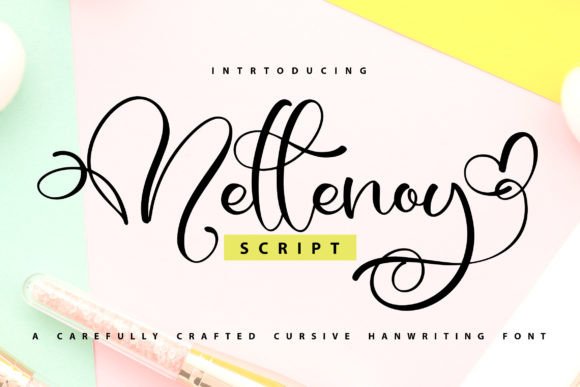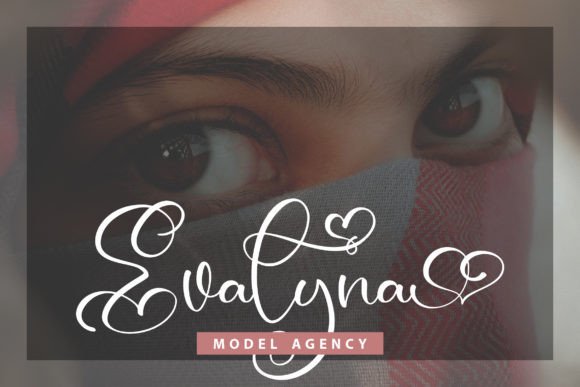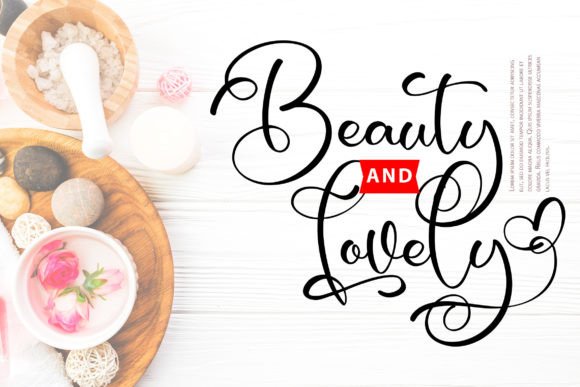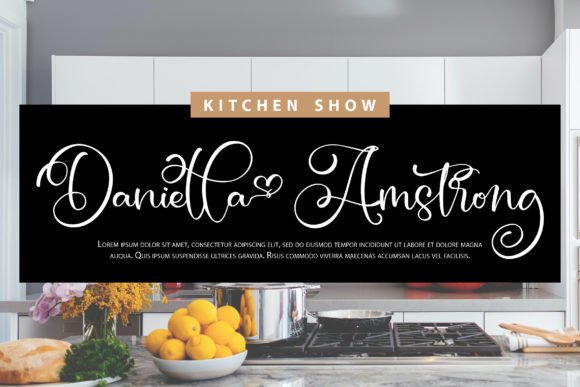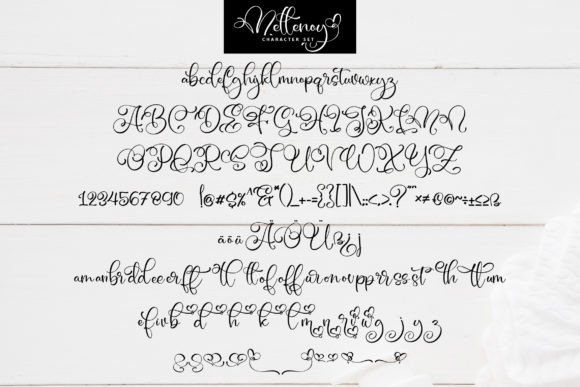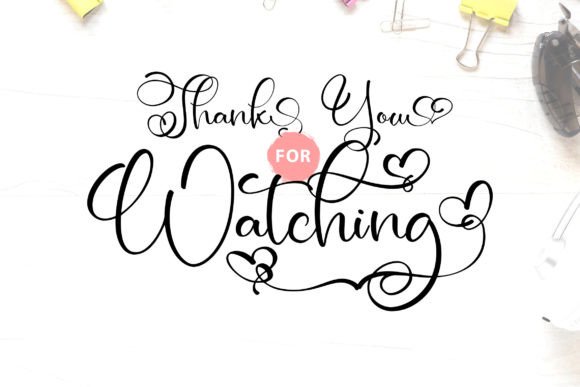
Mellenoy Font
About Mellenoy Font
**Mellenoy: A Beautiful and Refined Script Font**
**Mellenoy** is a beautiful and refined script font that exudes class, elegance, and a modern aesthetic. With its versatile and timeless appearance, this font is a perfect choice for various design applications, including logos, branding, invitations, stationery, wedding designs, social media posts, and more.
**Mellenoy** stands out with its exquisitely designed script letterforms, conveying a sense of beauty and sophistication. Each character is meticulously crafted, making it an ideal choice for projects that demand a classy and elegant look.
This font’s versatility makes it suitable for a wide range of applications. Whether you’re working on branding and logos, wedding invitations, social media graphics, product packaging, or any other creative endeavor, **Mellenoy** adds a touch of refinement and style to your work.
In branding and logos, this font ensures your visual identity has an elegant and modern appearance, making it memorable and impactful.
For wedding designs and stationery, **Mellenoy** enhances the romantic and timeless aspects of your projects, setting the tone for unforgettable celebrations.
In conclusion, **Mellenoy** is more than just a font; it’s a design asset that brings beauty and elegance to your creative projects. Whether you’re designing for special occasions, branding, or various other contexts, choose **Mellenoy** to infuse your work with its unique and refined charm. Embrace its timeless style, and let your creativity flourish with sophistication.